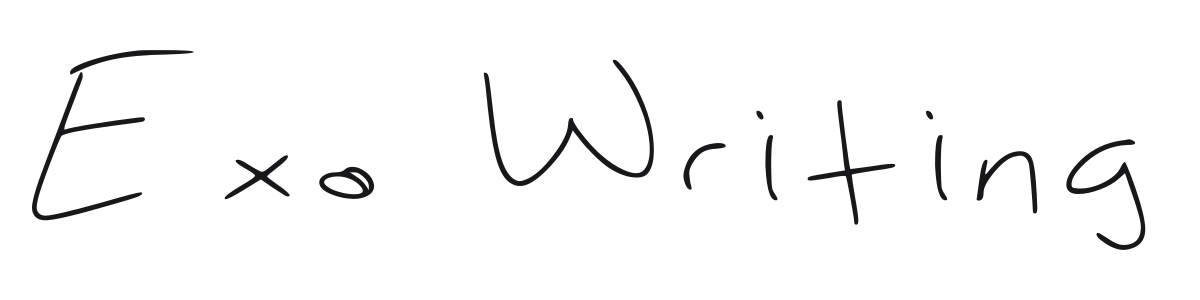
Exo Writing
Exo Writing is a casual handwritten font that captures the loose, unguarded quality of everyday pen-on-paper writing. Its thin, spidery strokes and naturally irregular rhythm give it an authentic, personal feel that polished script fonts rarely achieve. Works well anywhere a human, unpretentious touch is needed.